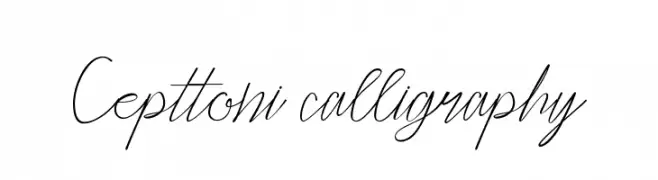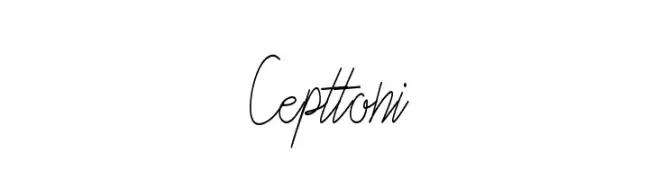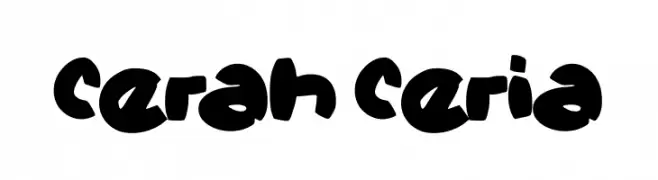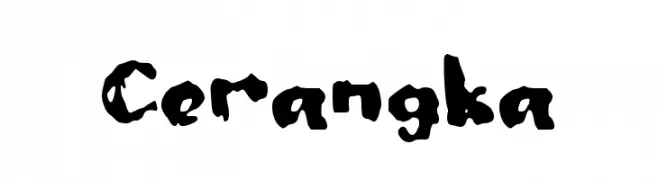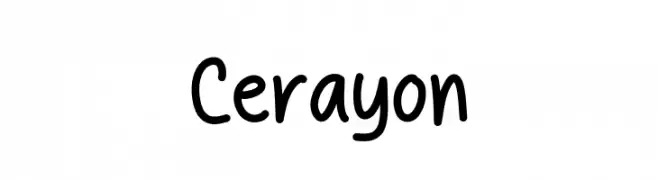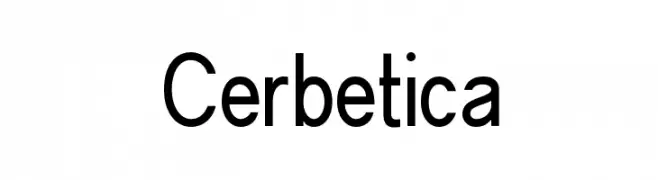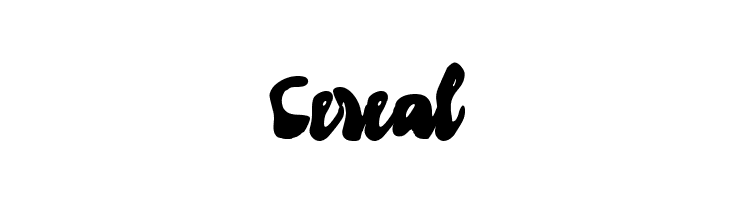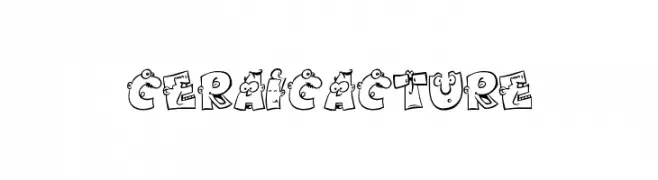
• Cepttoni
A fluid, handwritten-style font with elegant, connected letters.
• Cepttoni calligraphy
• Cerah Ceria
A bold, playful font with thick, rounded characters and a hand-drawn aesthetic.
• ceraicacture
• CERAMIC
A mosaic-like font with characters formed from irregular fragments, offering a textured and artistic look.
• CERAMIC
A mosaic-inspired decorative font with a textured, artistic appearance.
• Cerangka
A bold, irregular, hand-drawn font with an artistic and whimsical style.
• Cerayon
A playful, casual handwritten font with rounded, smooth letterforms.
• Cerbature
• Cerbetica
A modern, clean sans-serif font with uniform strokes and a slightly condensed width.